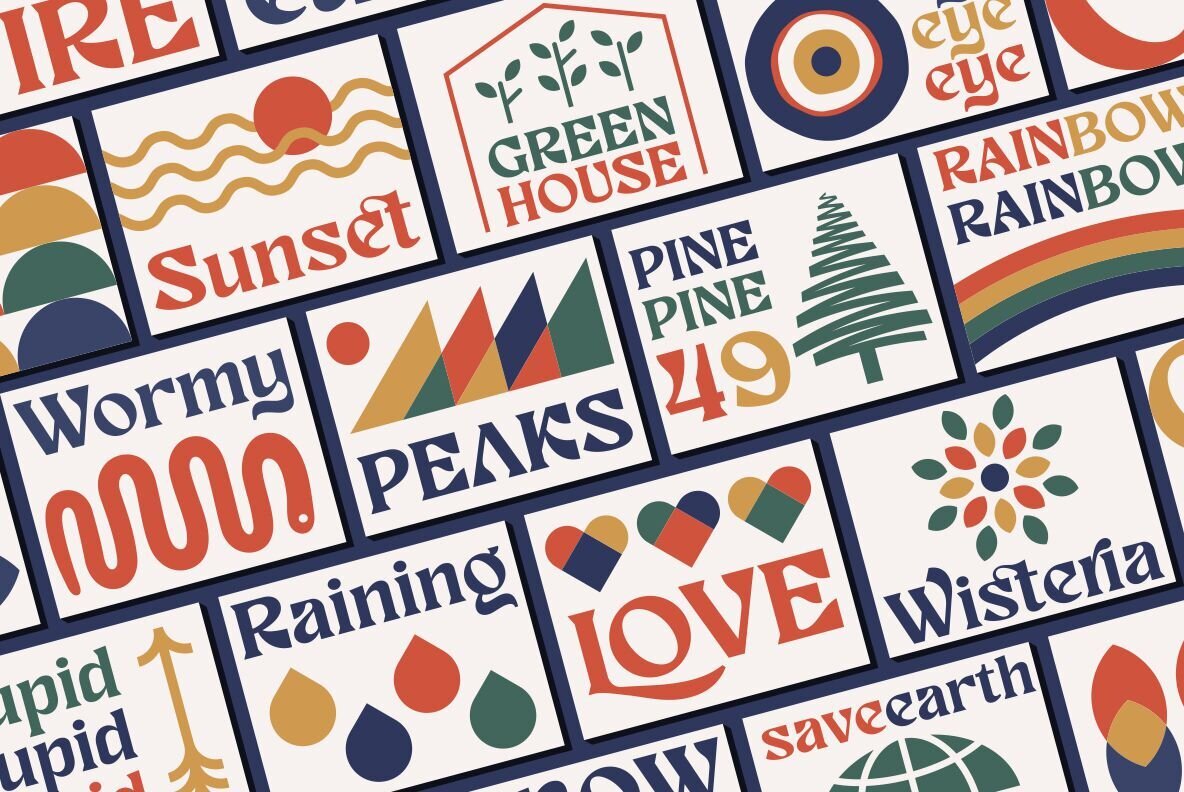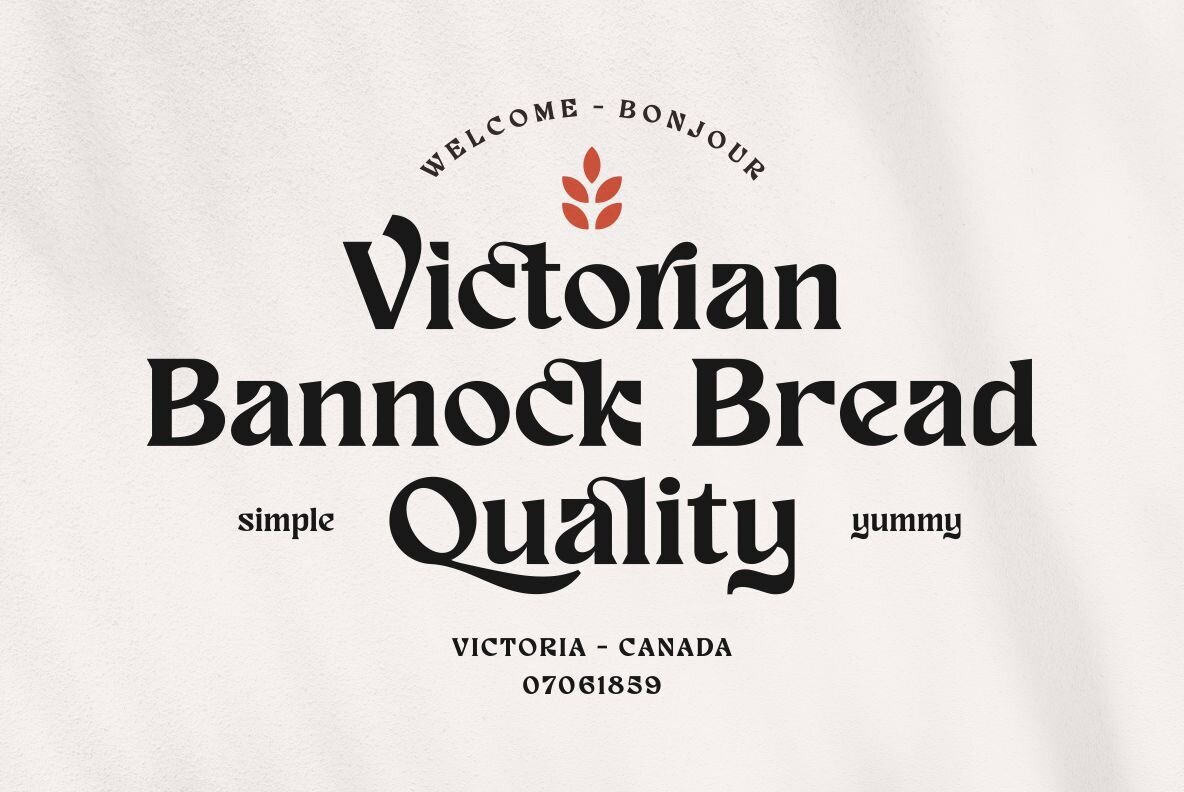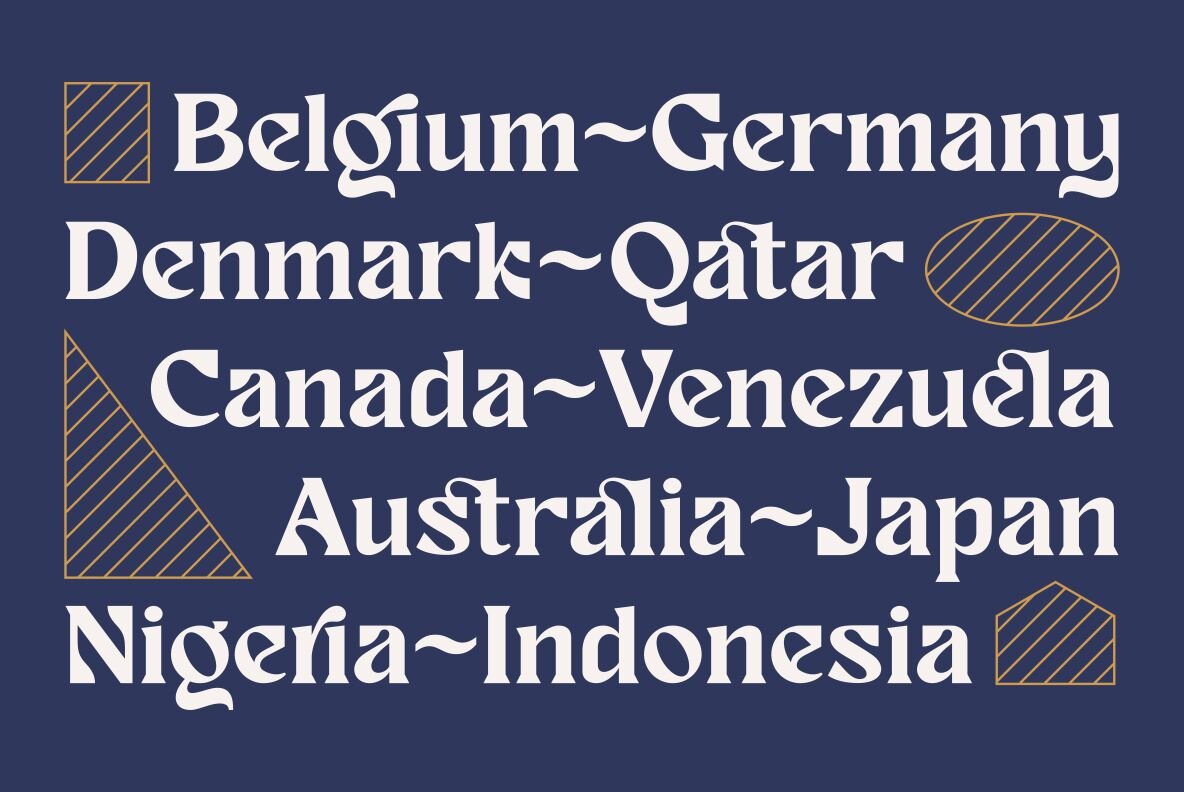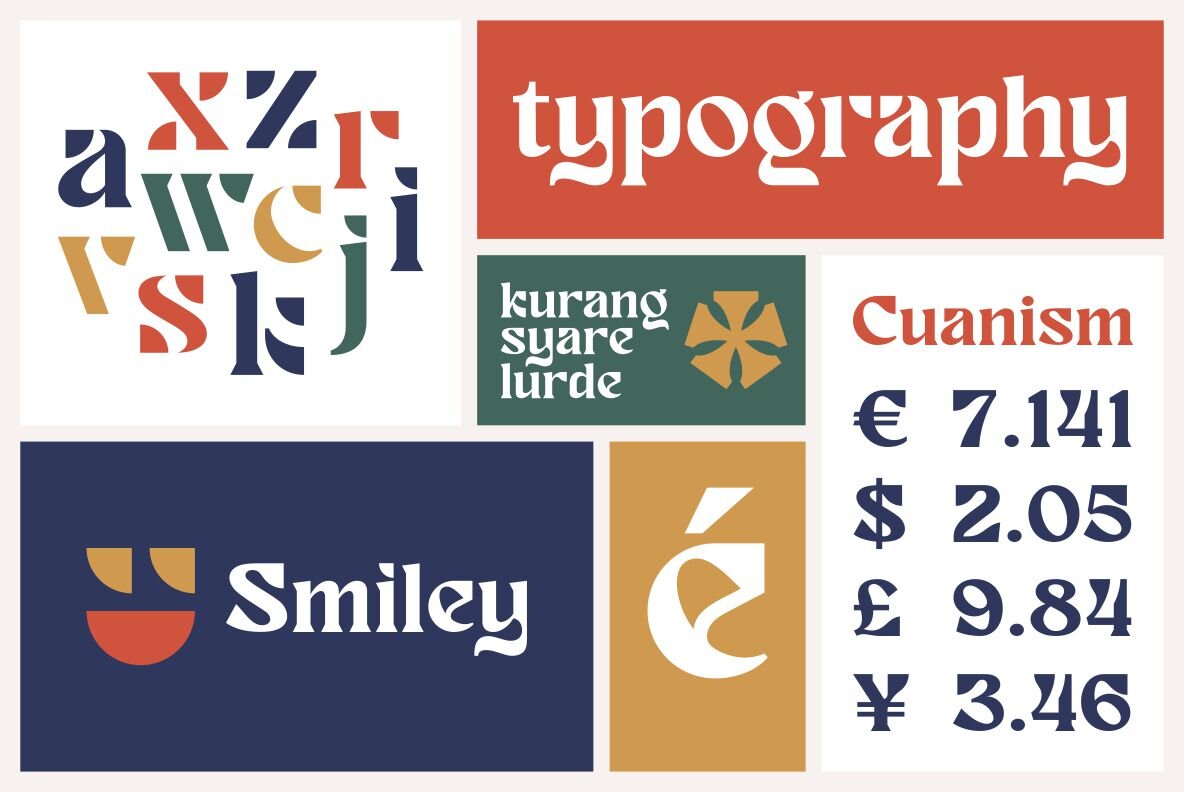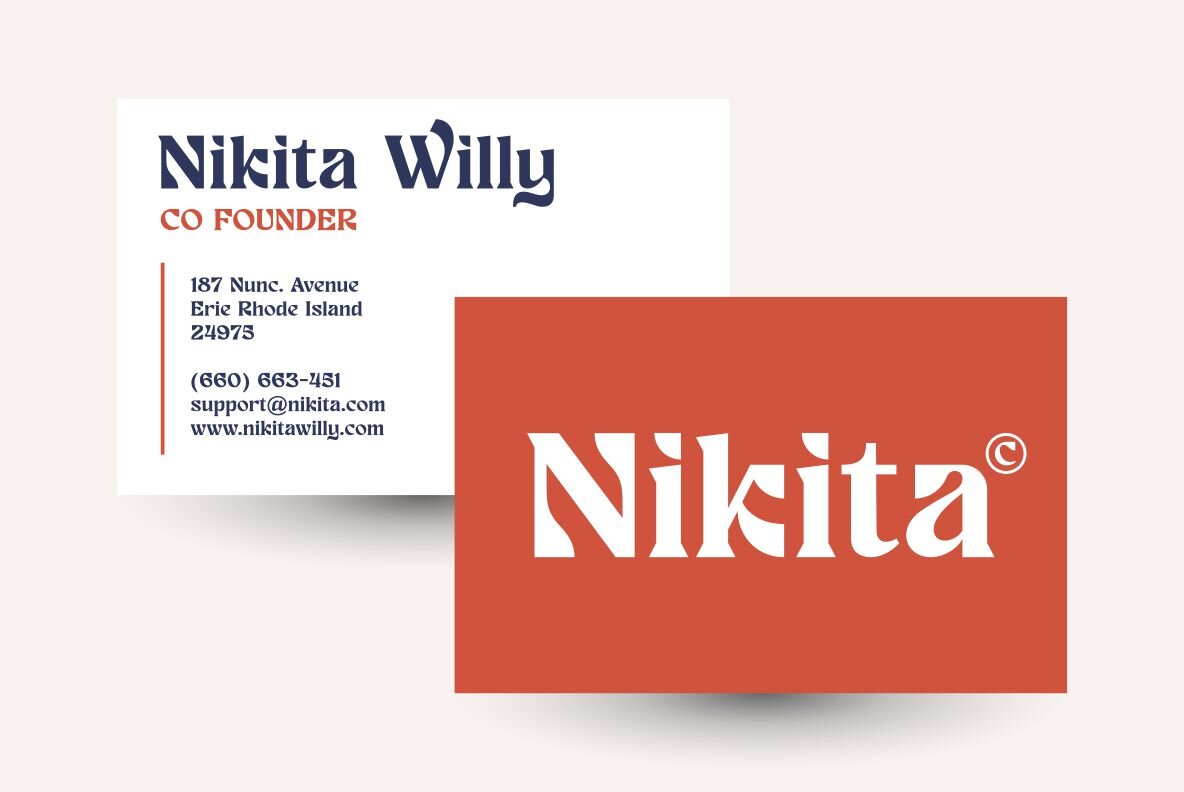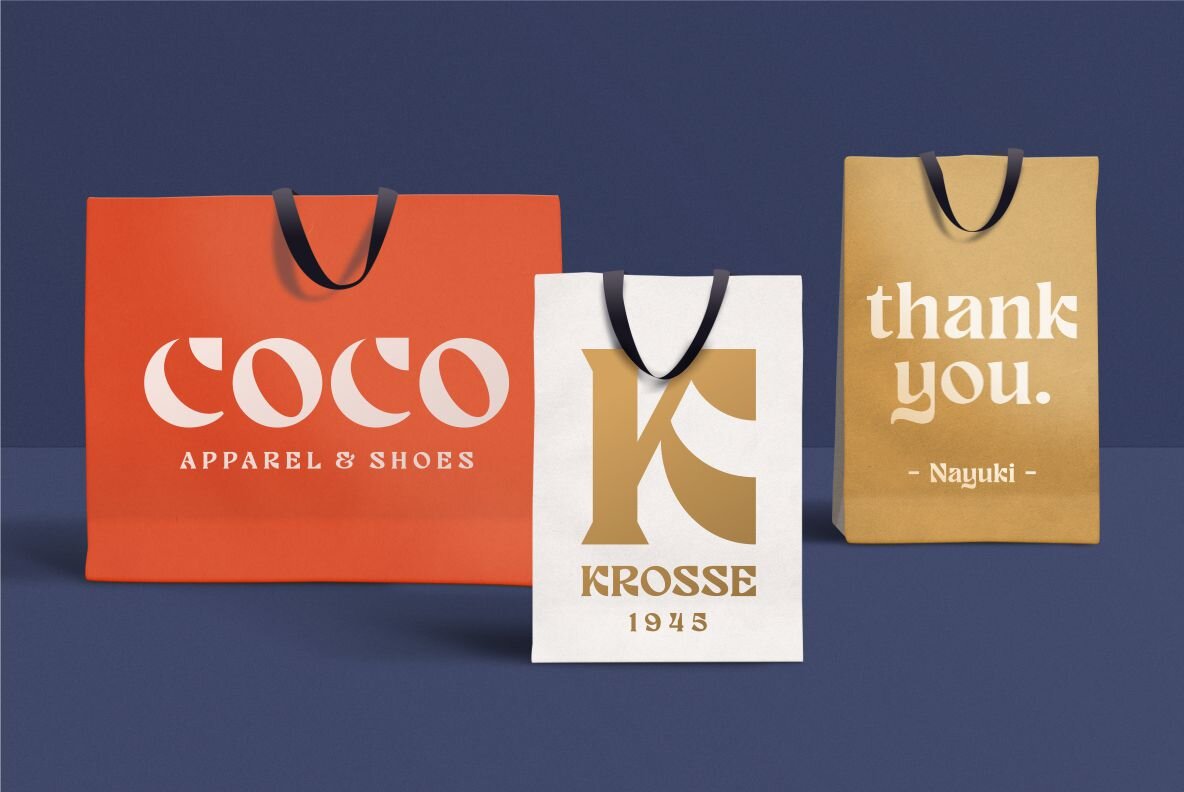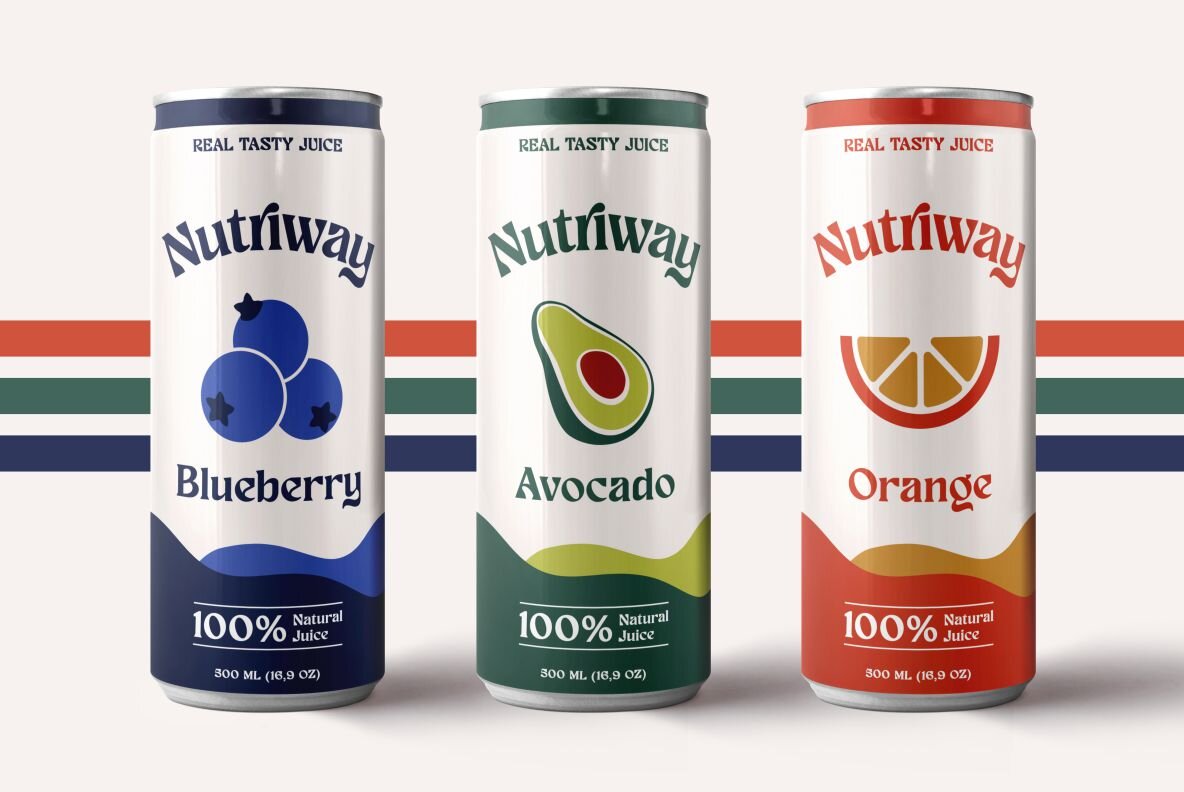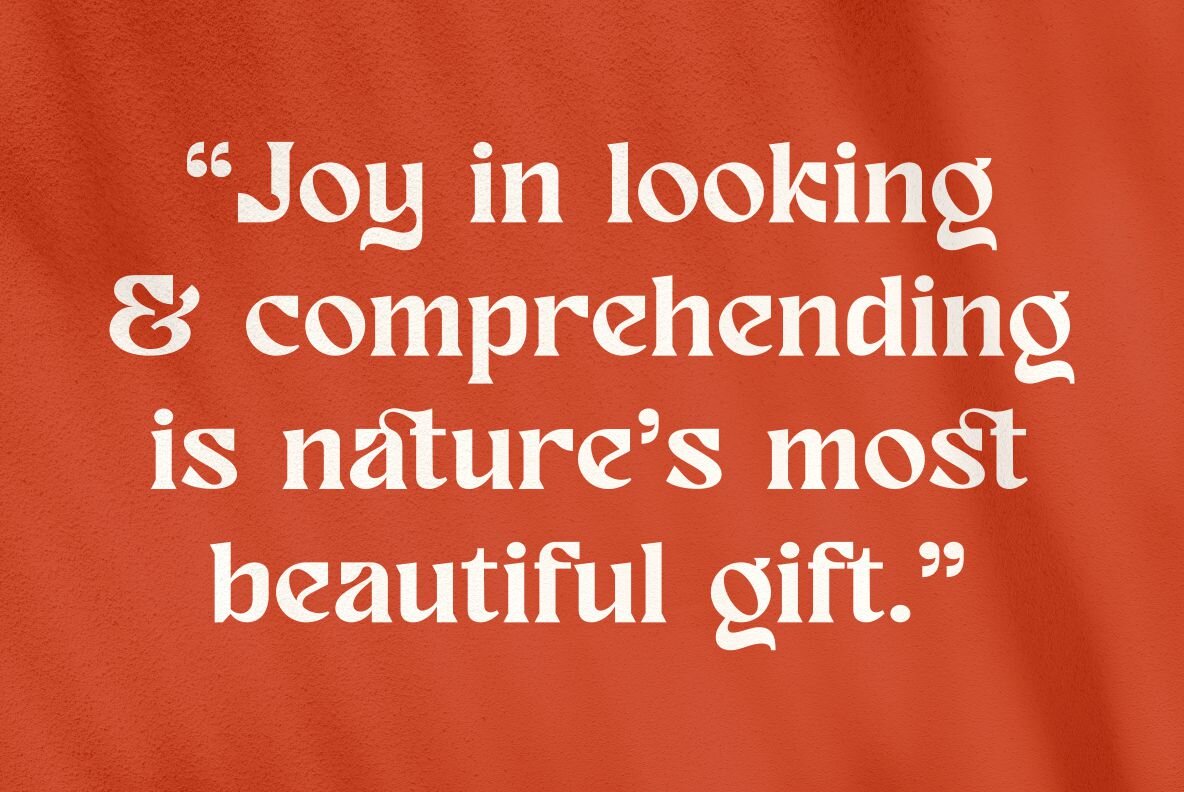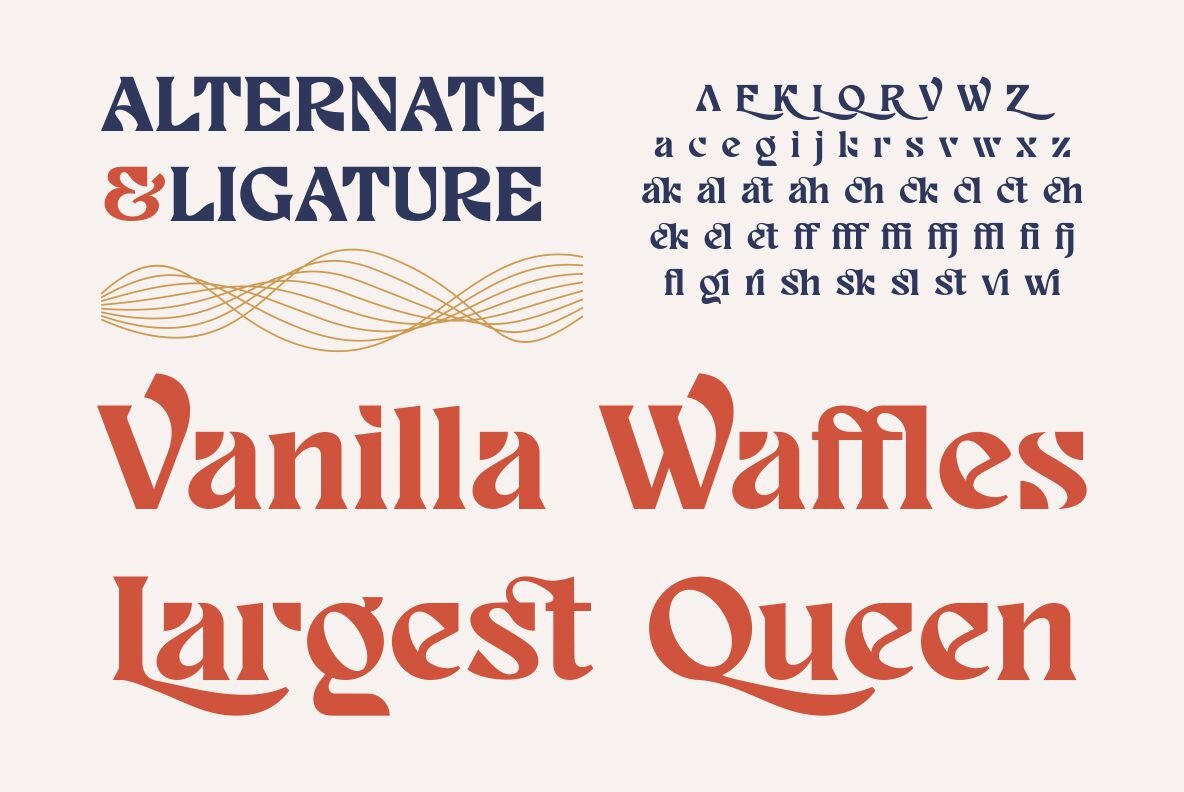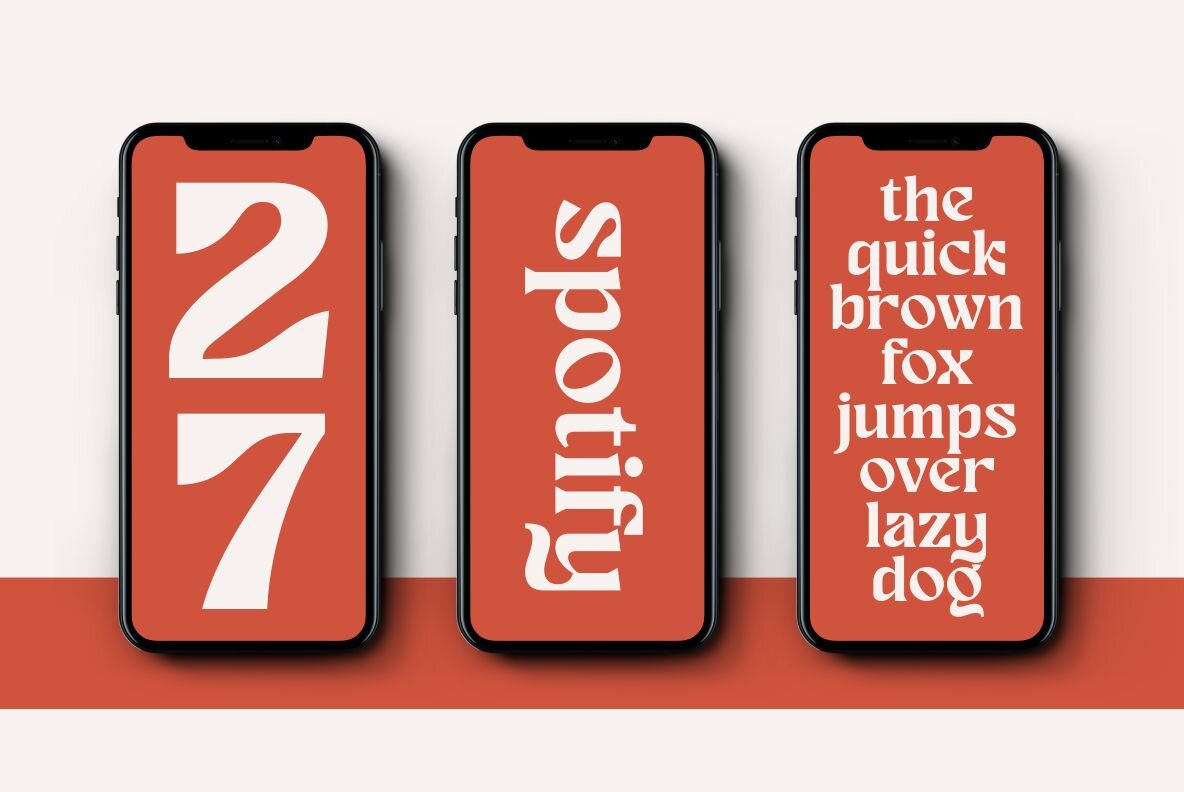
Nayuki Font
Nayuki Regular
Nayuki is a unique new serif display font. The Nayuki font provides a unique collection of glyphs that are bold and curved but they also have a strong geometric outline. This font will bring you an amazing new visual experience. You can use this font in retro, vintage and modern designs. This font also has alternate and ligature features which are perfect for completing various projects such as logos, brands, products, labels, websites, posters, and many more.
The font includes uppercase, lowercase, numbers, symbols, alternates, ligatures and multilingual support.